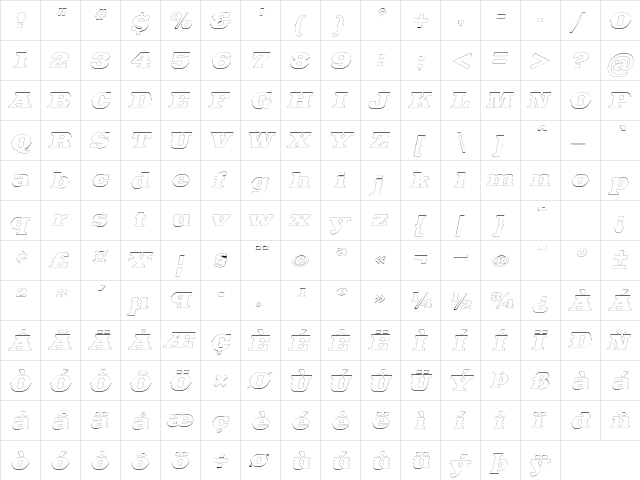
SaddlebagOutline Italic
Design Context for SaddlebagOutline Typeface
SaddlebagOutline brings ornamental detail and strong personality to headlines and identities, where visual impact matters more than quiet functionality. The slanted form adds forward momentum and visual energy.
Font Pairing: Pair with a clean neutral sans-serif for body copy to let SaddlebagOutline's character lead without overwhelming the composition.
Pro Tip: Treat SaddlebagOutline as the centrepiece of your typographic hierarchy. One strong heading set in a decorative face can carry an entire layout.